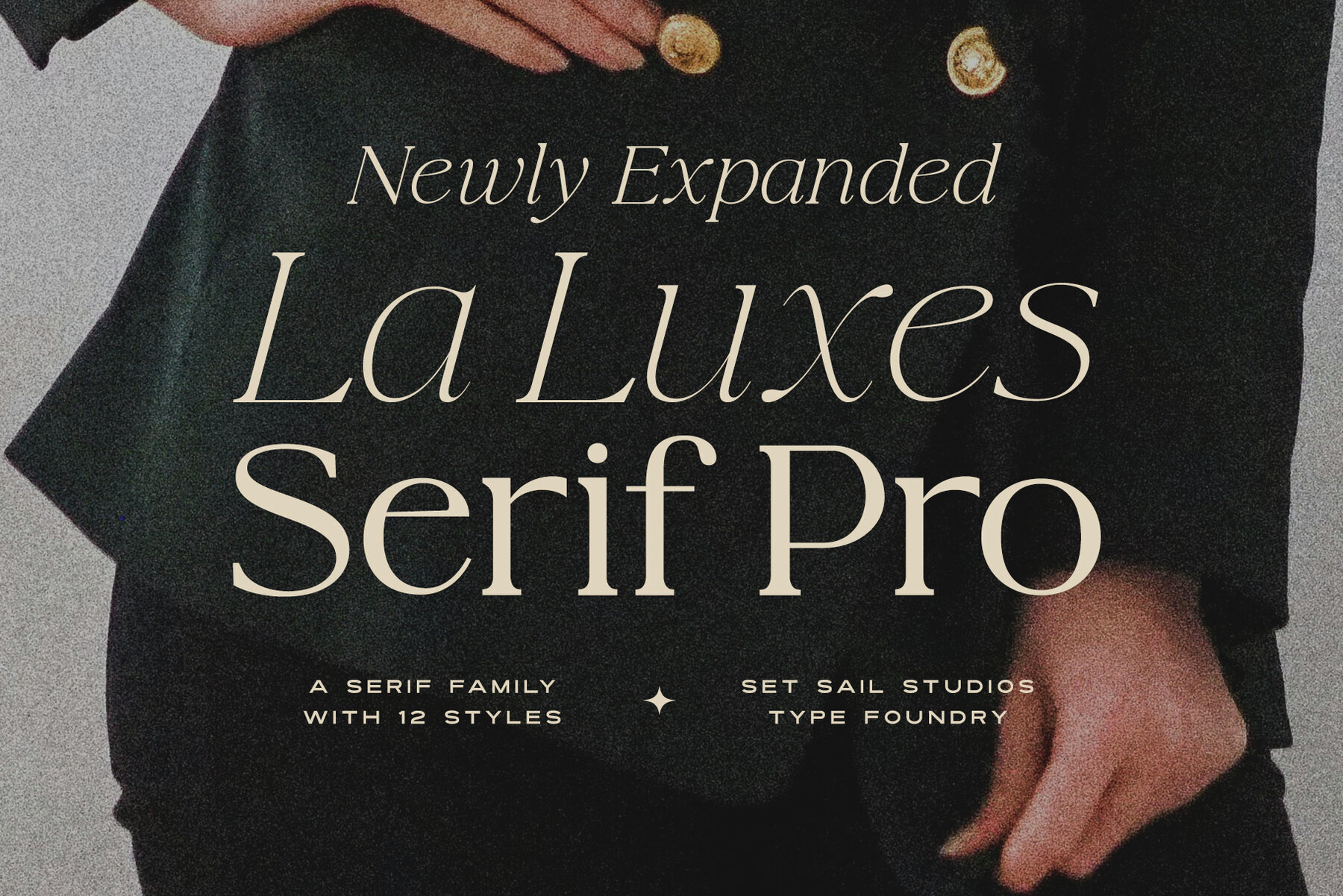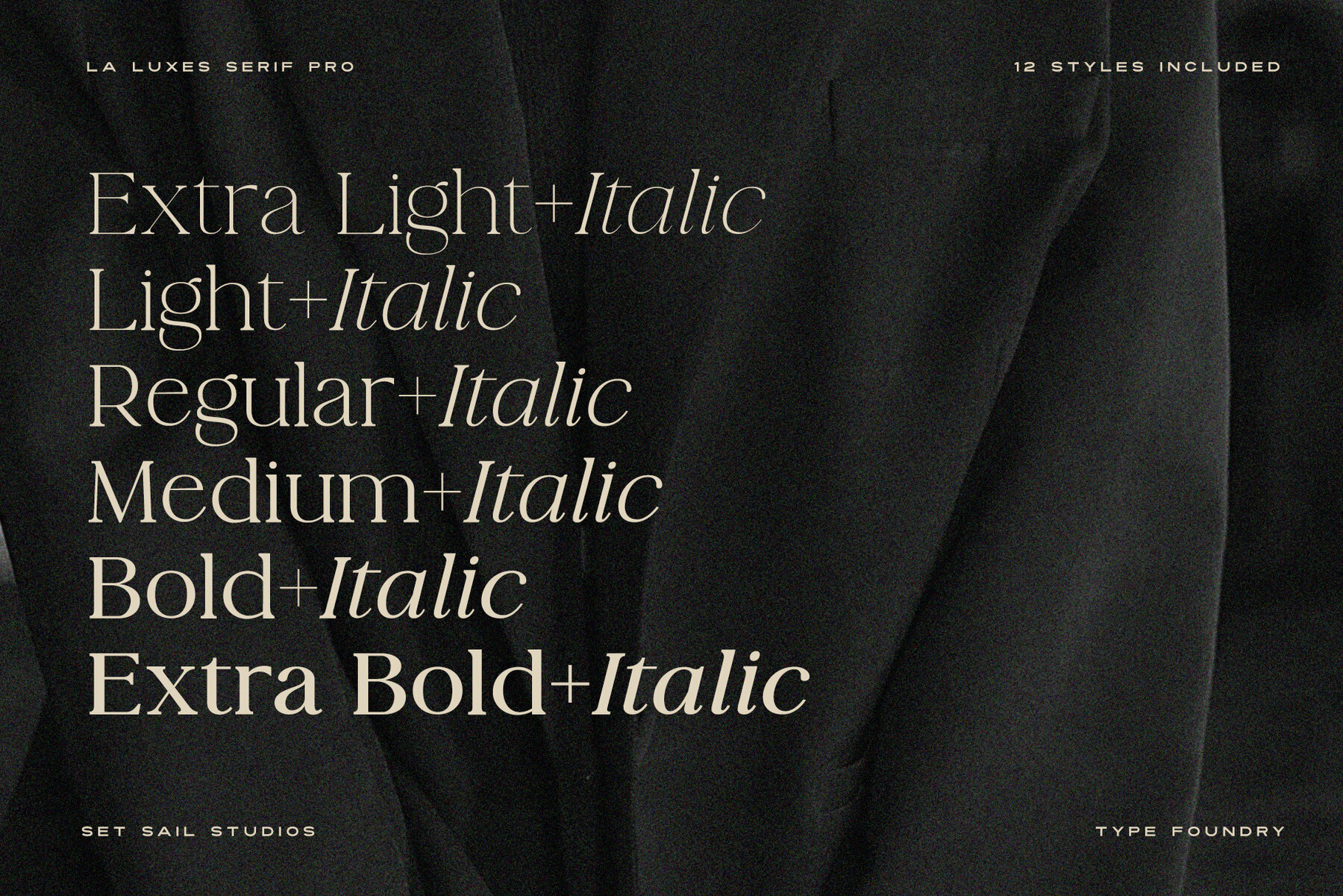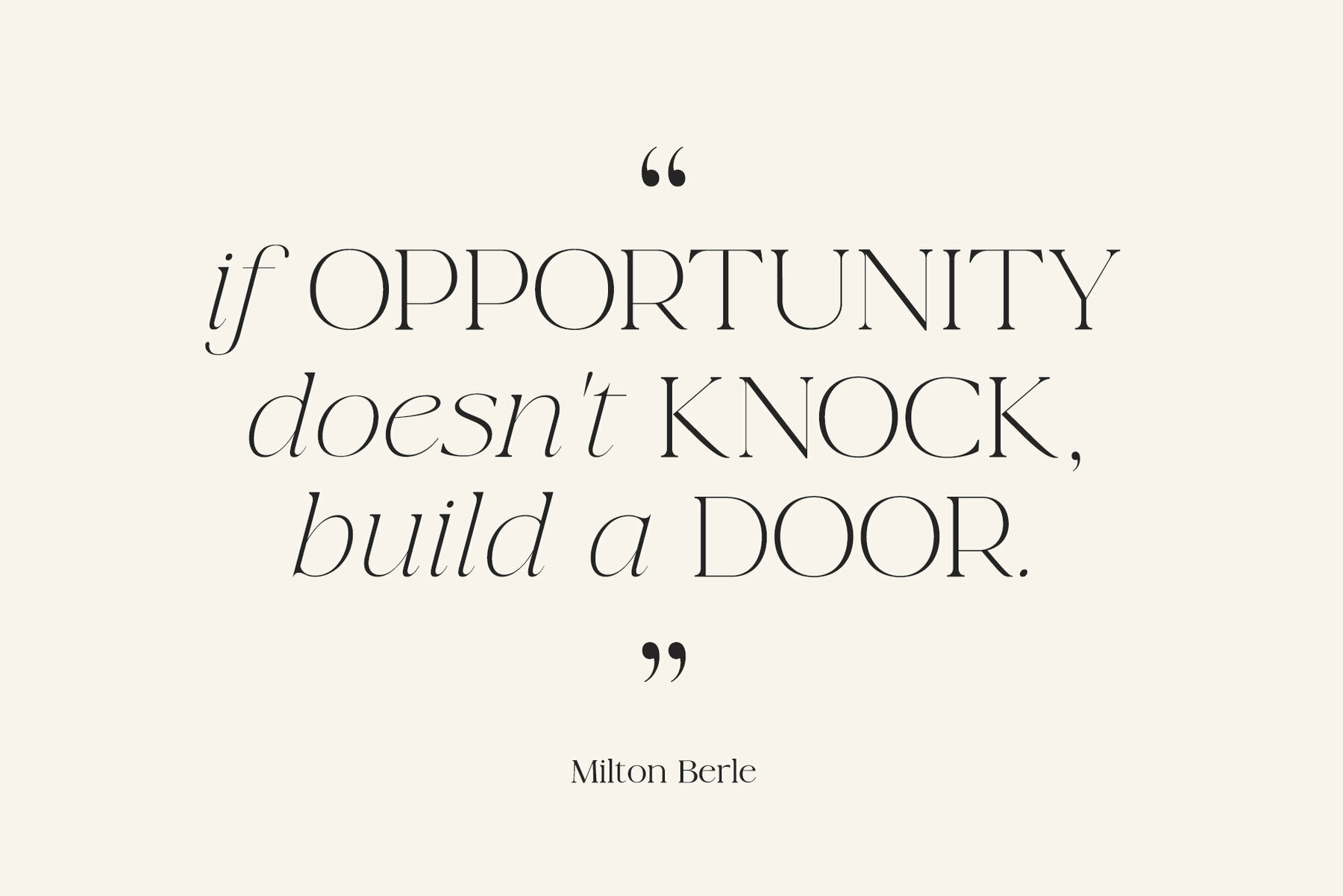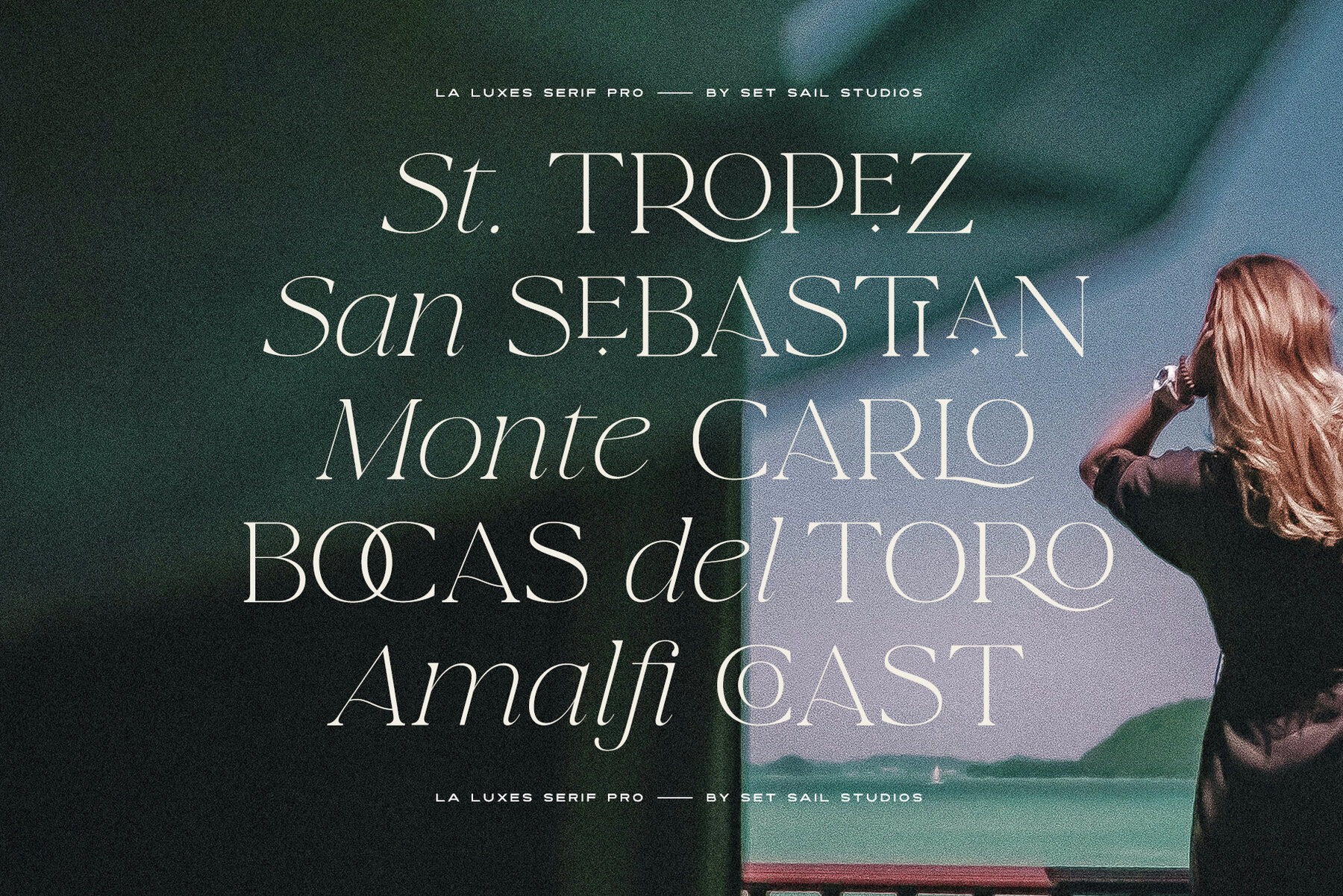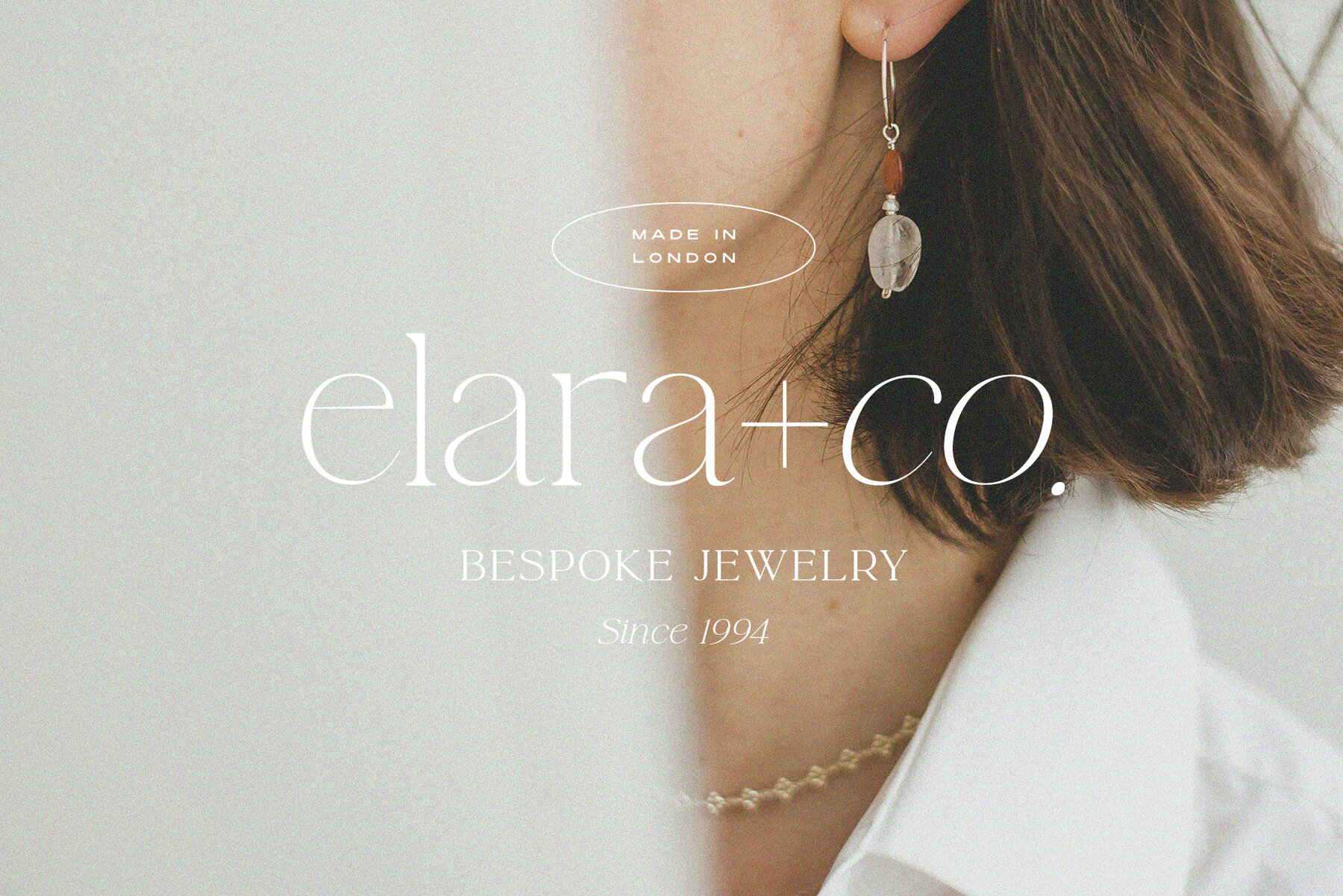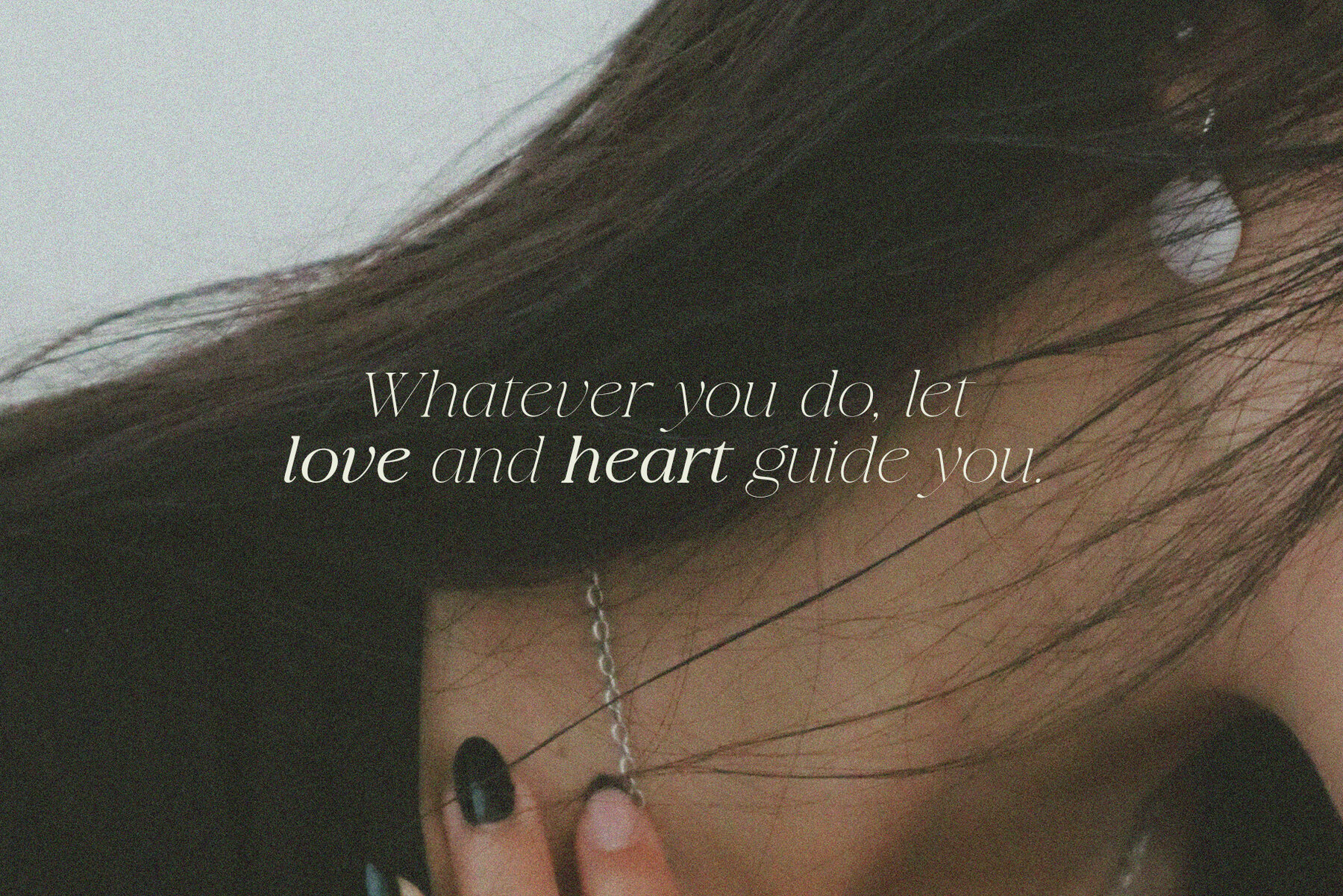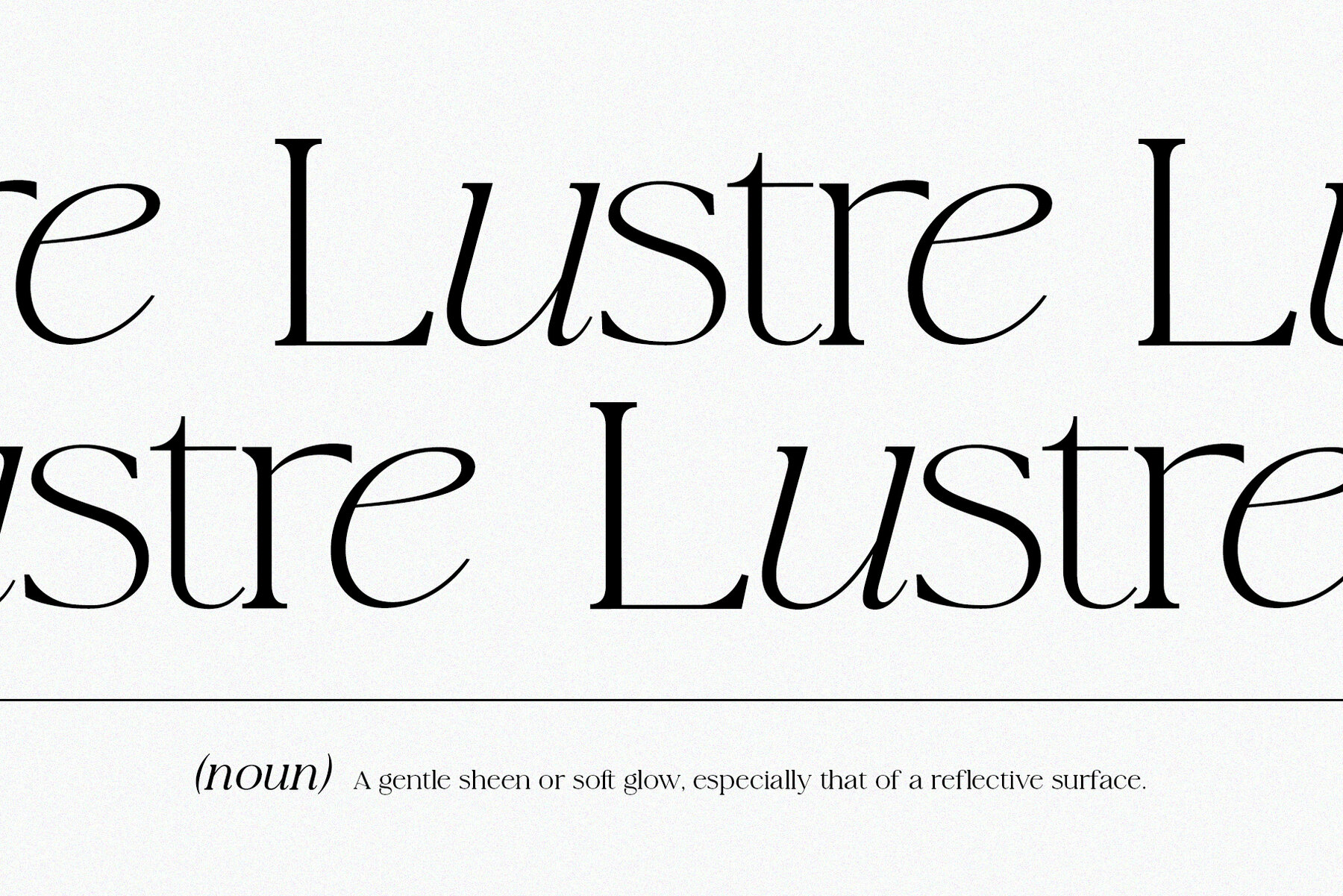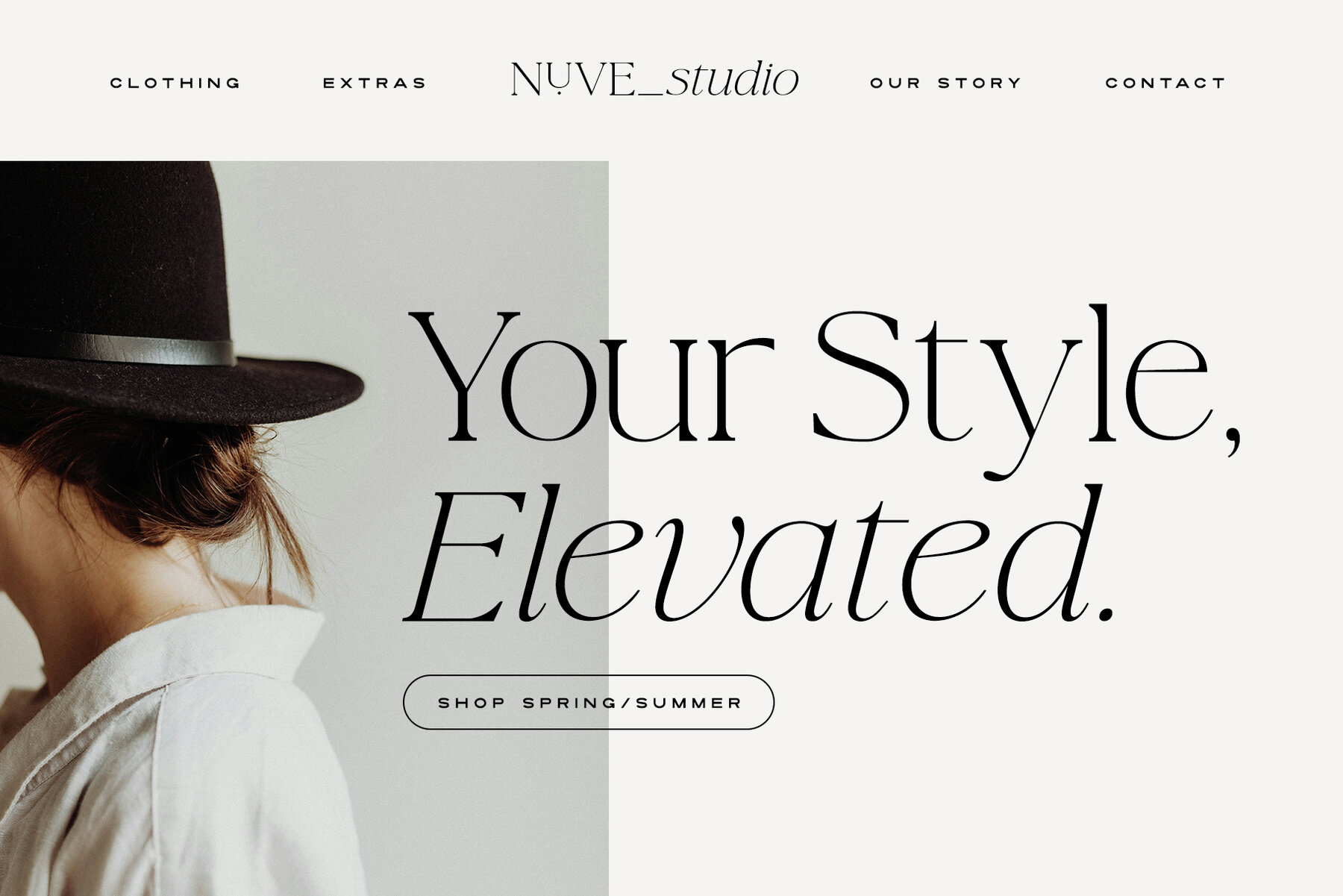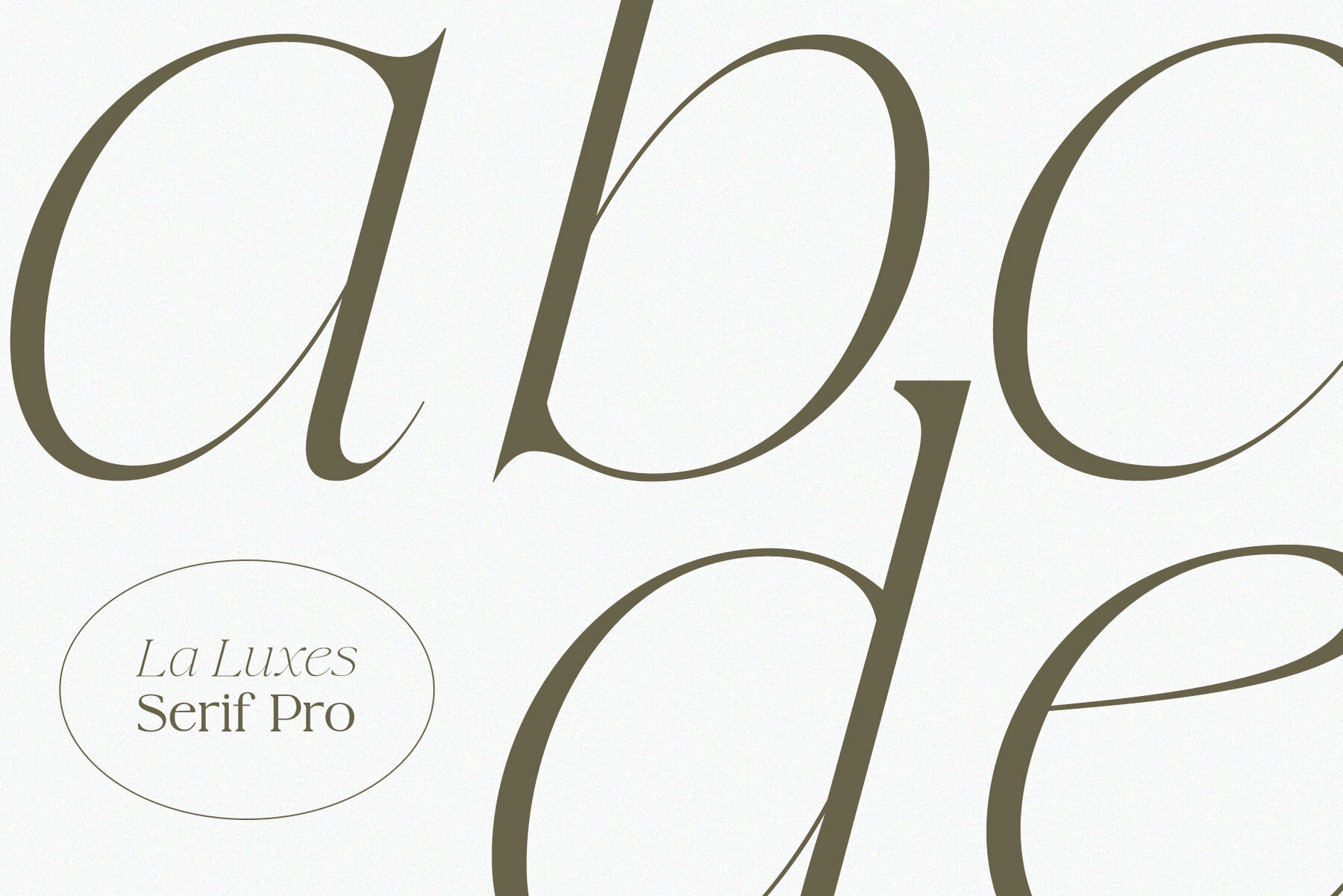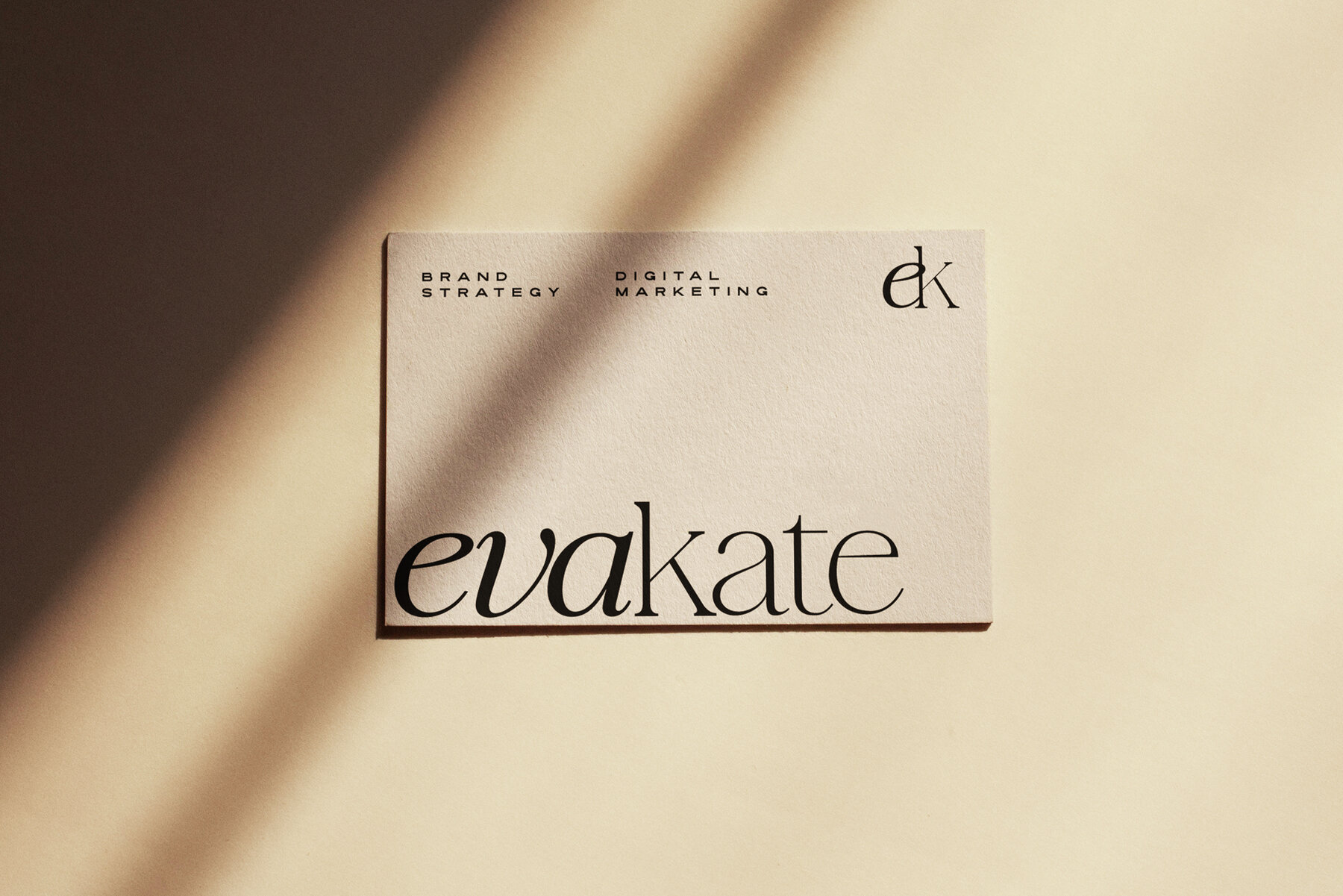
La Luxes Serif Pro Font
expand_font La Luxes Serif Pro Font Unleash creativity with La Luxes Serif Pro: 12 fonts for dynamic designs. Ligatures & language support included. Serif,Luxury,Luxurious,Elegant,Feminine,Chic,Classic,Transitional,Vintage,High Contrast,Opulent,Refined,Sophisticated,Graceful,Traditional,Old Style,Fashion Explore Exceptional Fonts for Digital and Traditional Media Fontpath offers a large variety of fonts for every designer, all at affordable prices and in multiple formats. Browse our best in class fonts today for all your creative needs, you can find everything you need right here at our site! Fonts,sans,sans serif,retro,script,decorative,title,FontPath 20140312040223 Fontpath offers 200,000+ of the most professional fonts found online, start downloading today! Real-Time Font Discovery at Fontpath